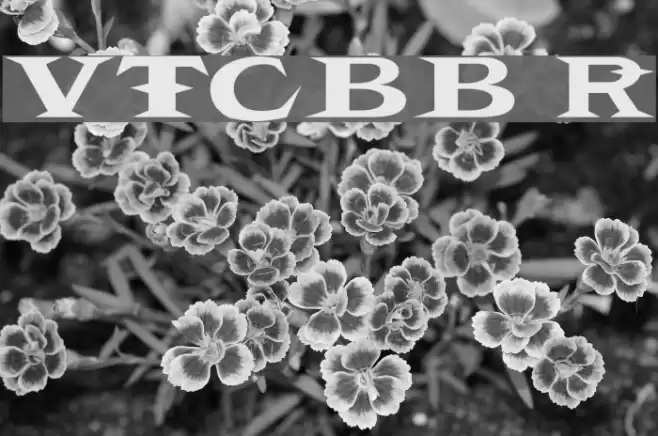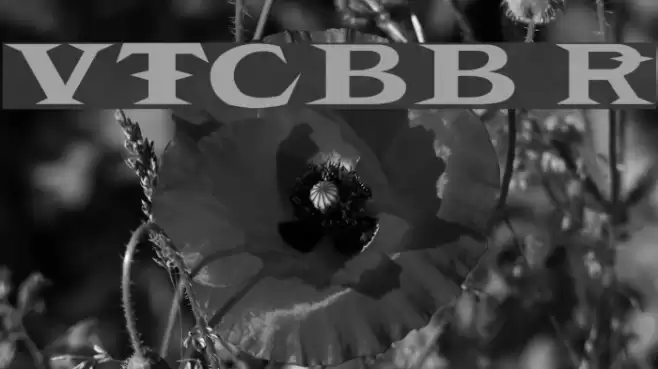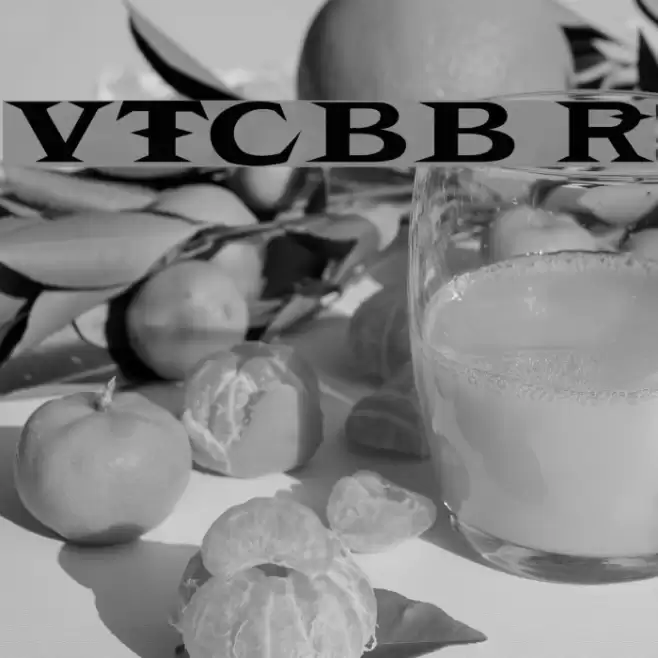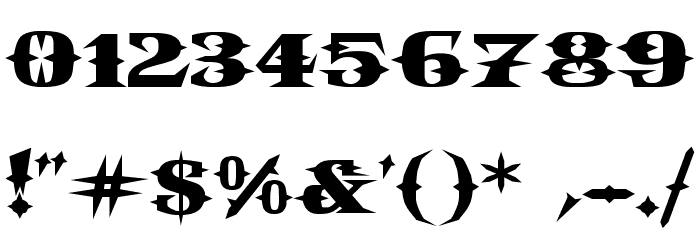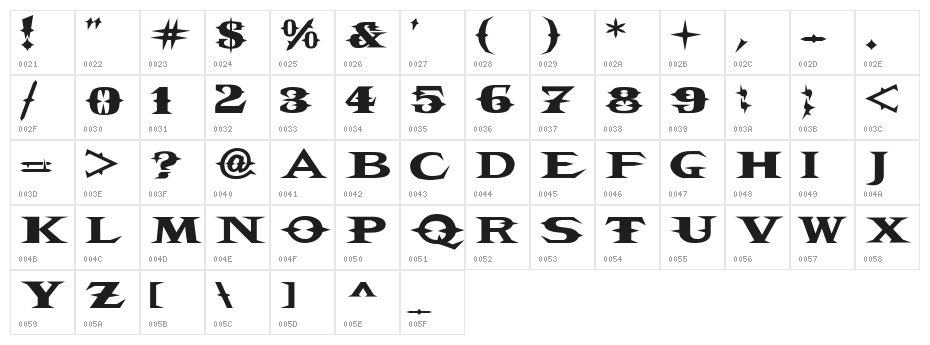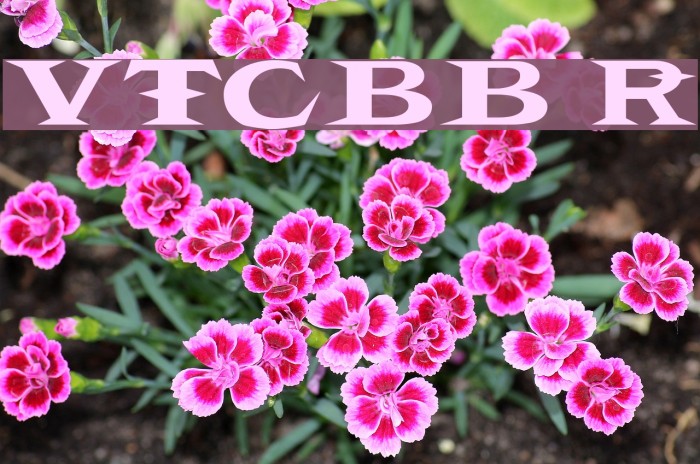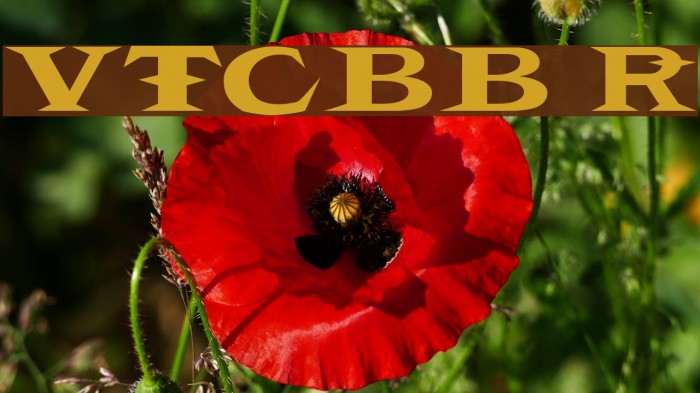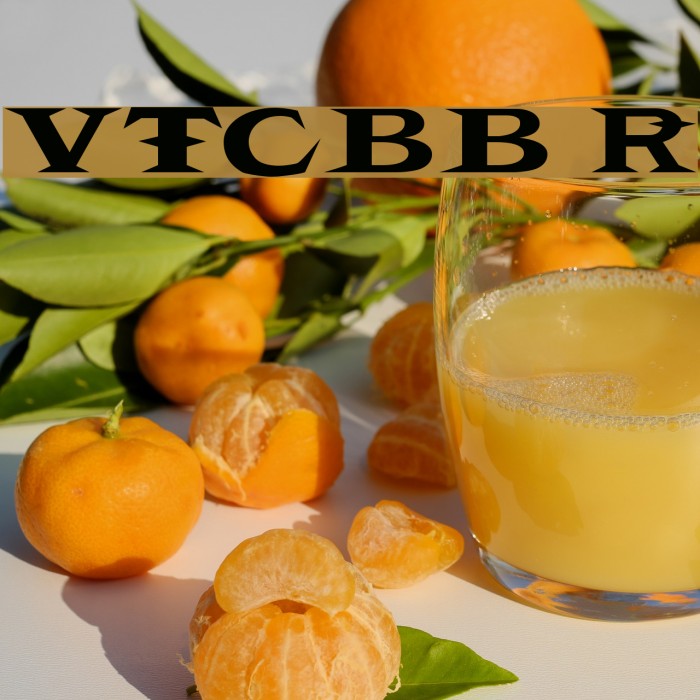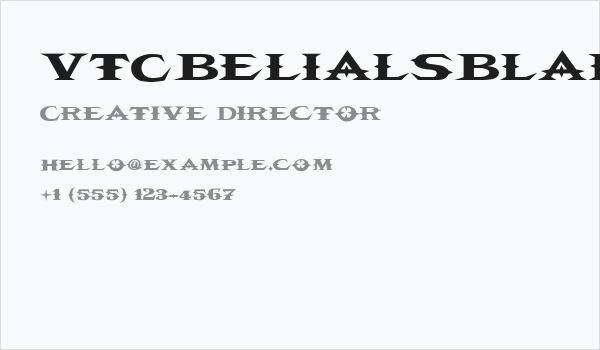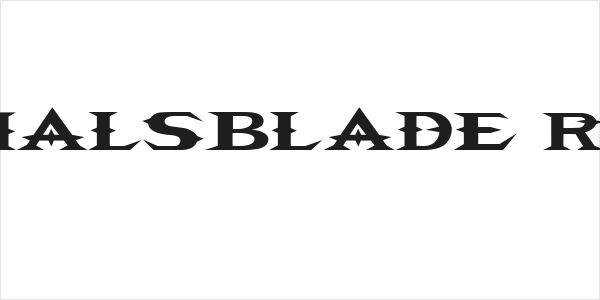
VTCBelialsBlade Regular Font
VTCBelialsBlade Regular Description
This font features a bold and dramatic style with sharp, angular edges and a distinct gothic influence. The characters are adorned with unique, pointed serifs that give it a fierce and aggressive appearance. The uppercase and lowercase letters maintain a consistent design, with the uppercase being slightly more pronounced. Numbers and special characters follow the same stylistic theme, adding to the font's cohesive look. The overall design is highly decorative, making it suitable for projects that require a strong visual impact.
A bold, gothic-inspired font with sharp, angular serifs and a dramatic style from Futuristic fonts.
- Proposed Projects: Ideal for horror-themed designs, video game titles, posters, and branding that requires a bold, edgy look.
- Overall Style: Gothic, Decorative